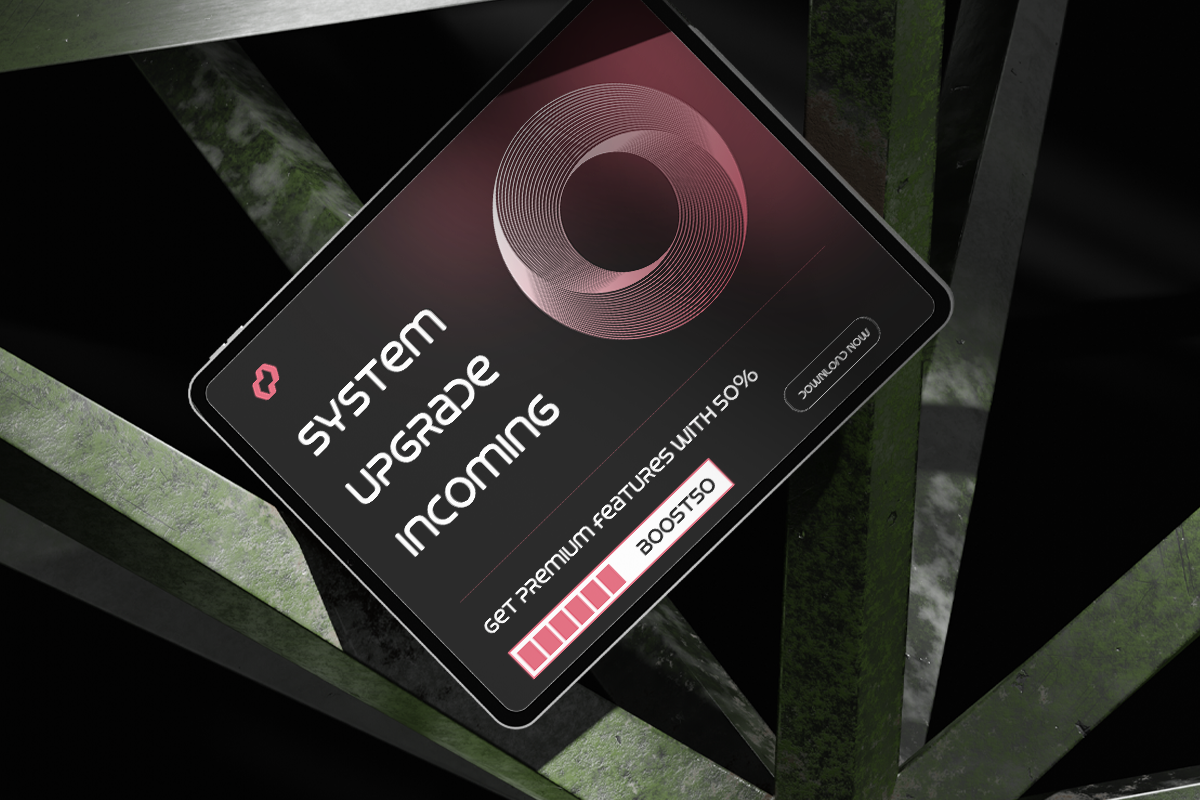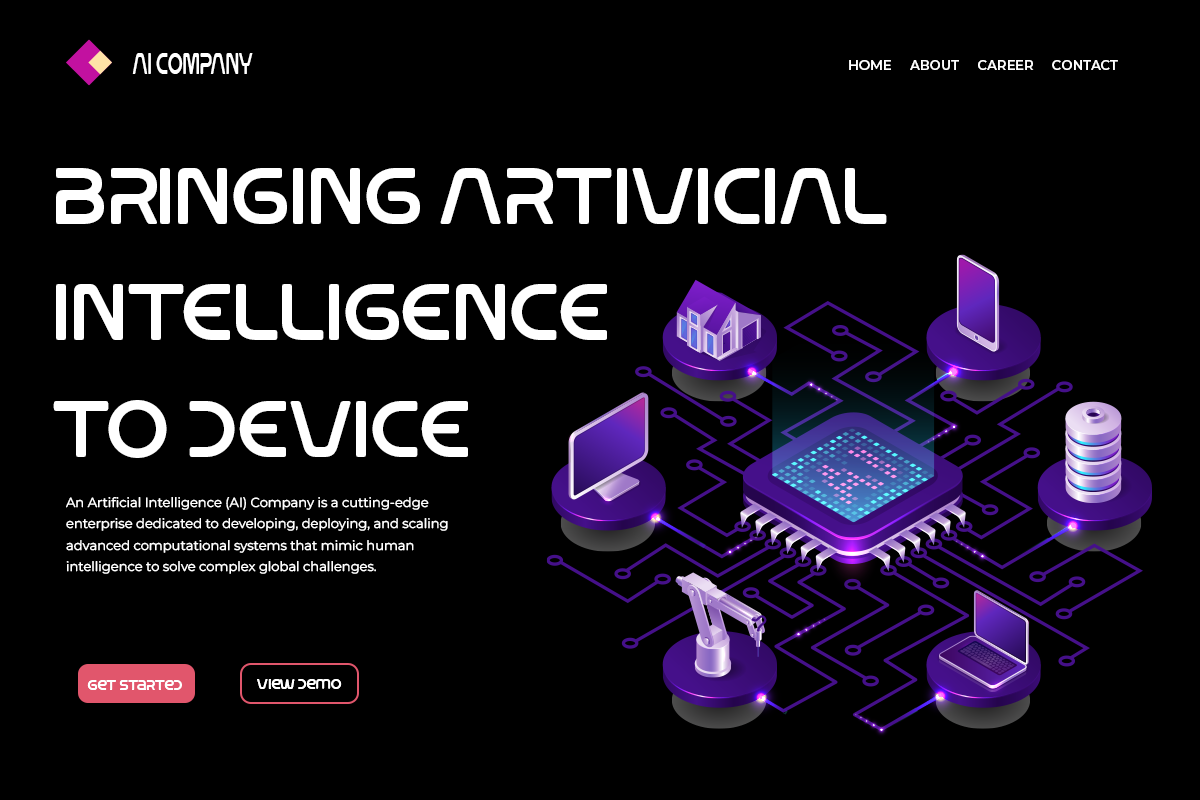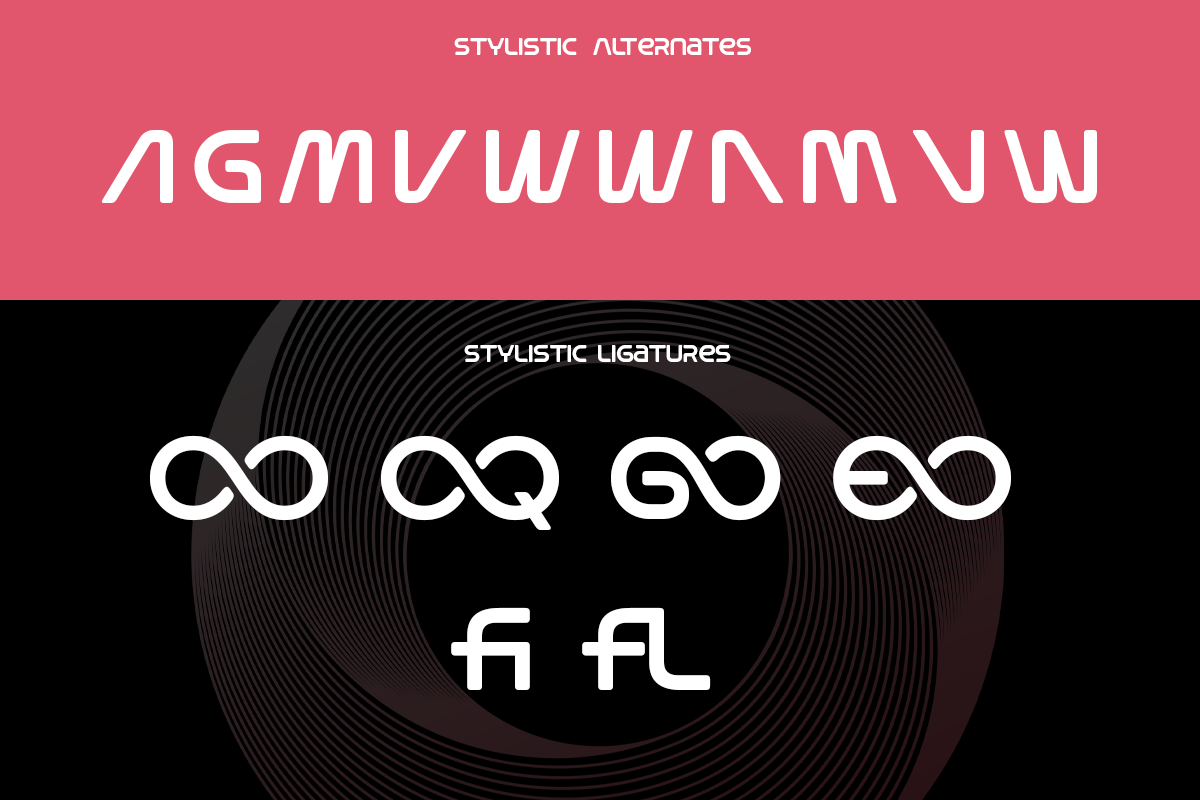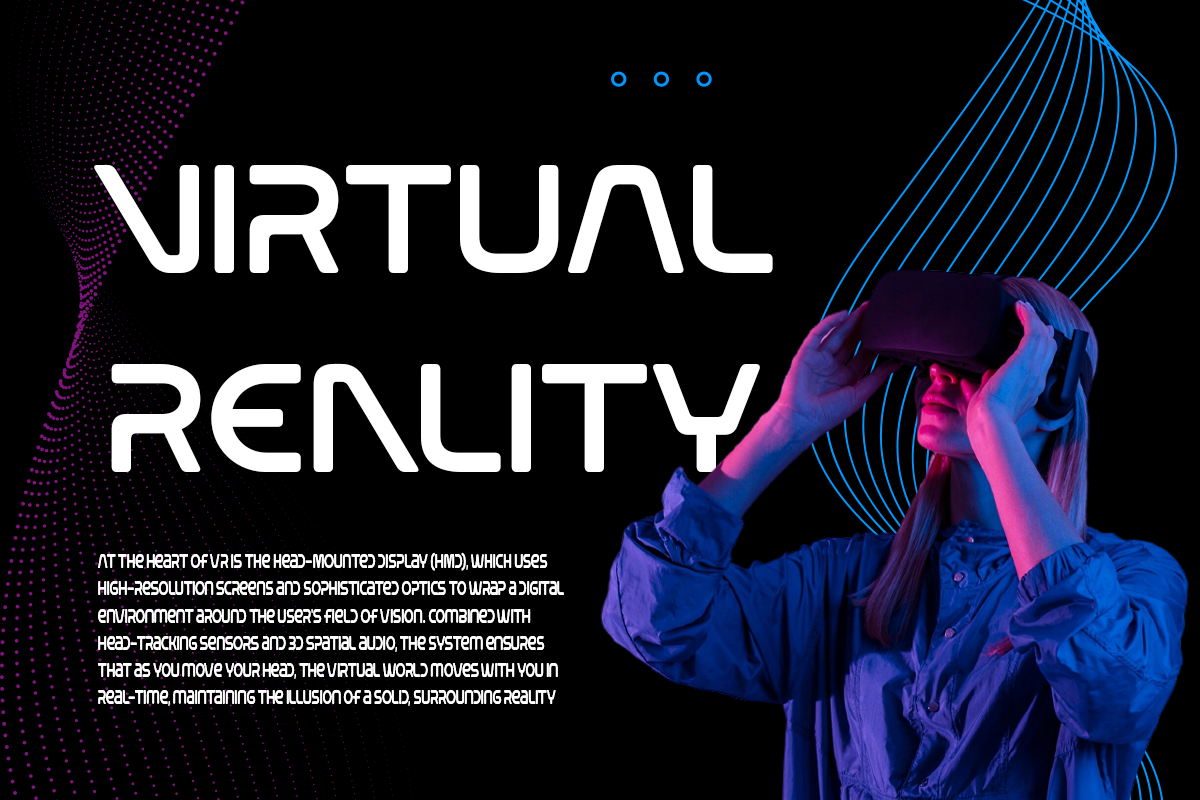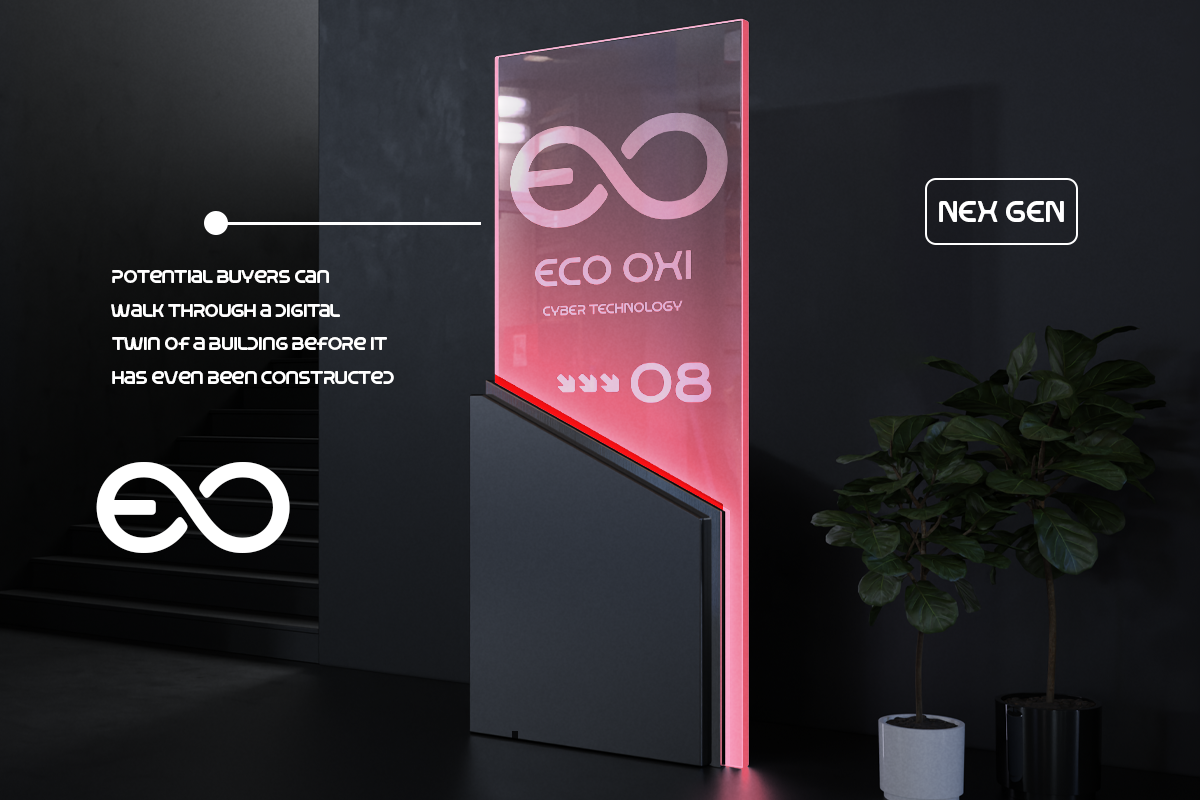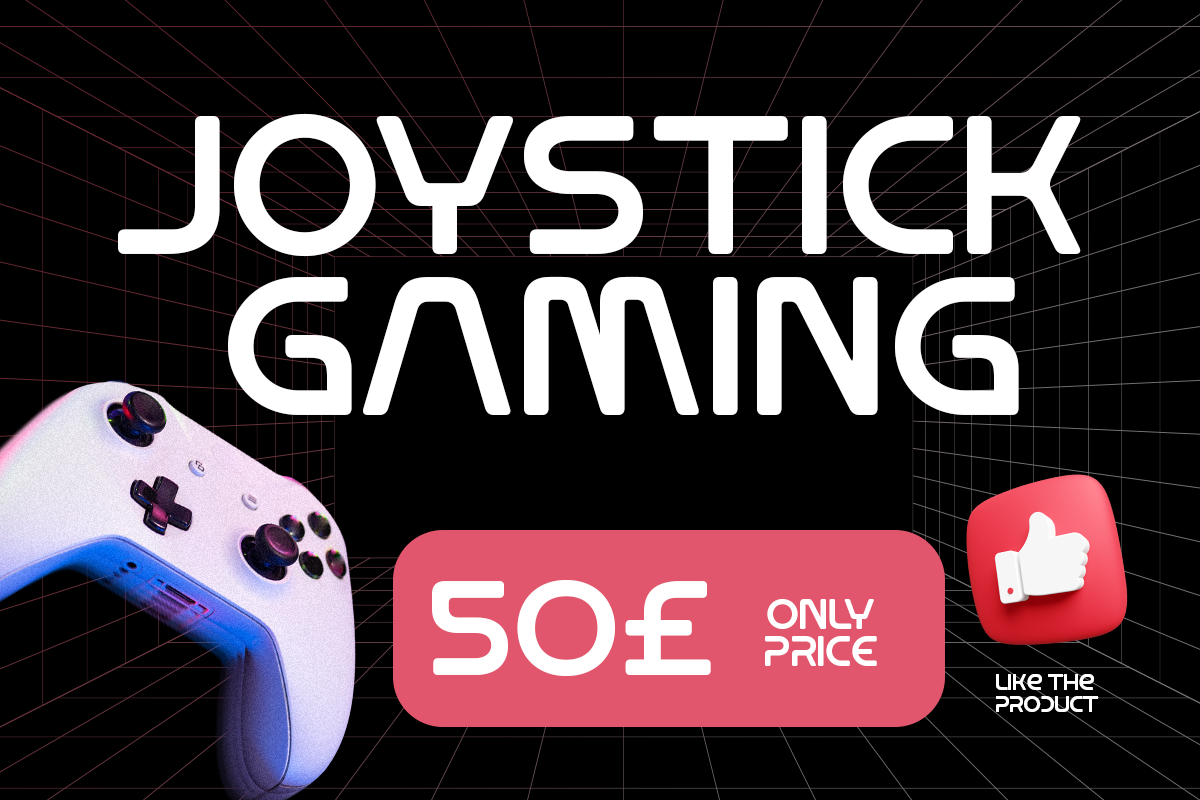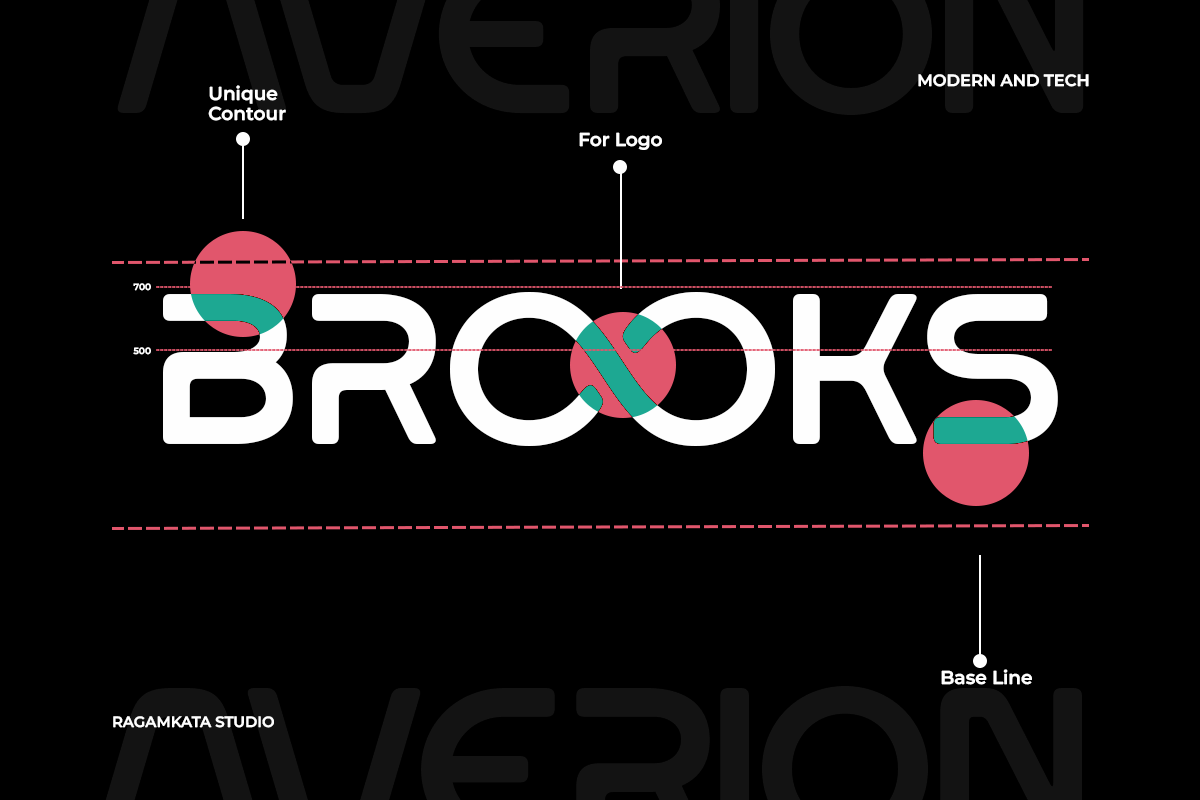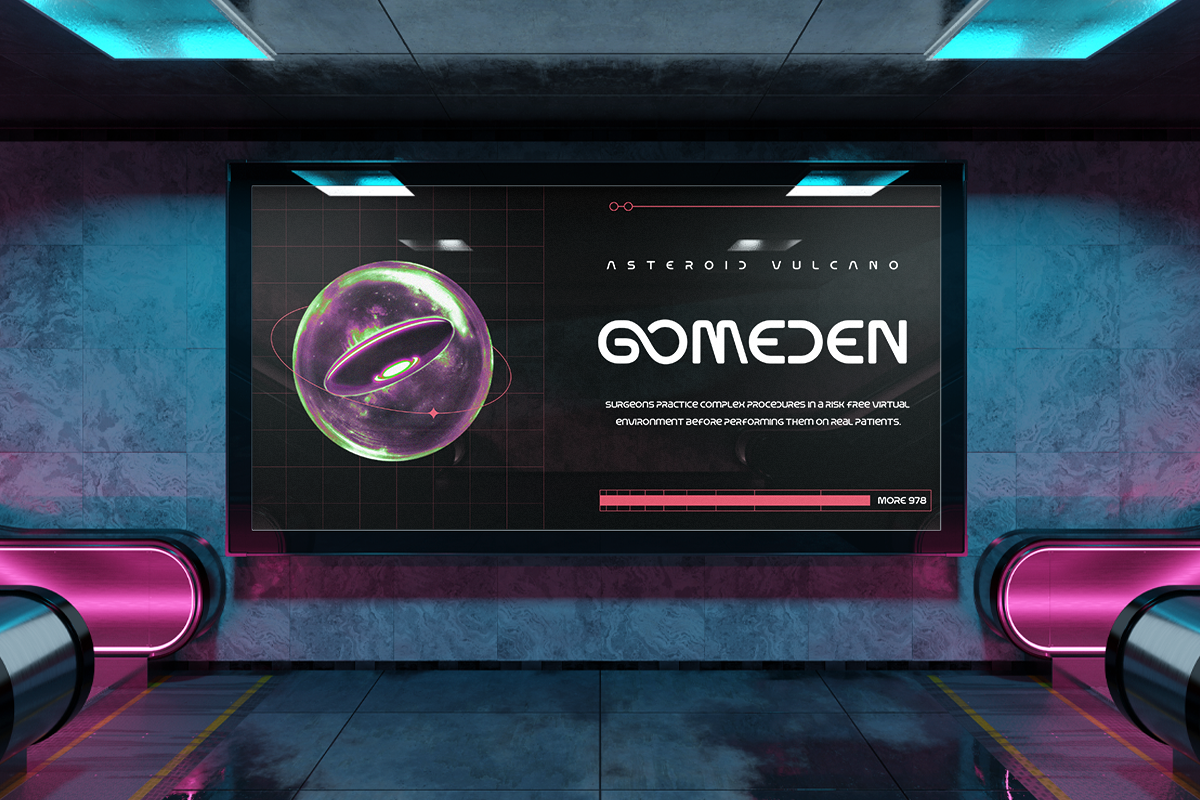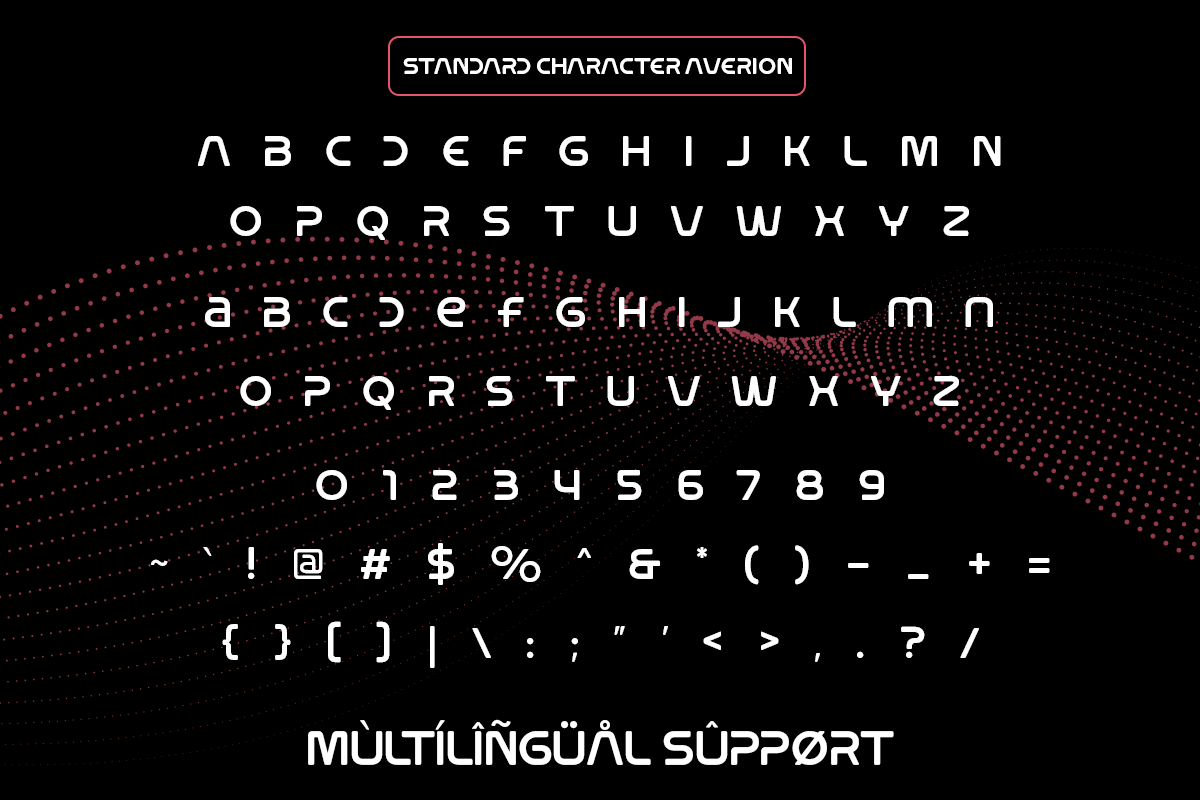
Averion - Modern Futuristic Techno
Averion is a cutting-edge futuristic typeface crafted to bring a bold, modern technology aesthetic into your design projects. Inspired by space exploration, digital innovation, and sci-fi visuals, this font delivers a sleek and clean look that feels both advanced and highly professional. Its geometric structure and smooth curves create a strong visual identity, making it perfect for standout typography.
Designed for versatility, Averion works beautifully across a wide range of creative applications such as tech branding, gaming visuals, UI/UX interfaces, posters, and digital campaigns. Whether you're building a futuristic logo or designing a high-impact headline, this typeface ensures clarity, uniqueness, and strong visual presence in every composition.
Averion is ideal for designers who want to communicate innovation, modernity, and forward-thinking concepts. With its bold personality and futuristic appeal, this font elevates your work into a new dimension—perfect for projects that demand a sleek, high-tech, and visionary style.
- Stylistic Alternates and Ligatures
- Number and Symbol